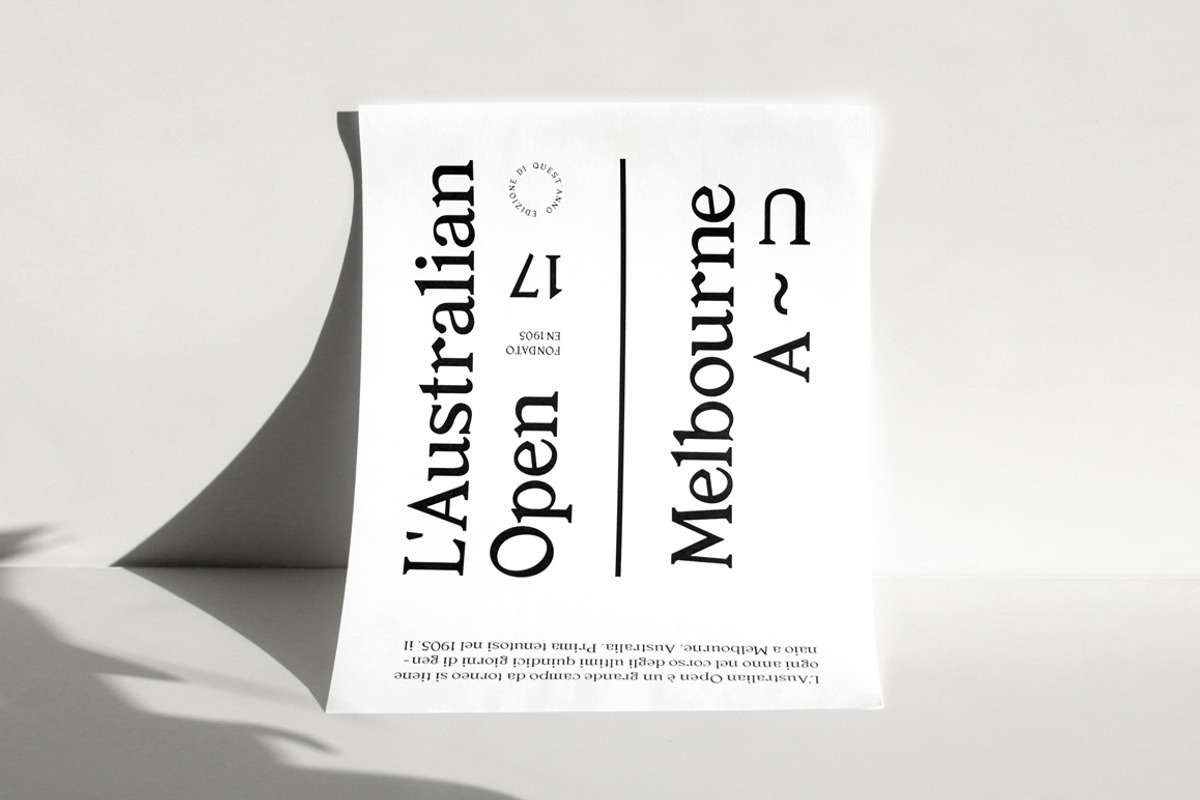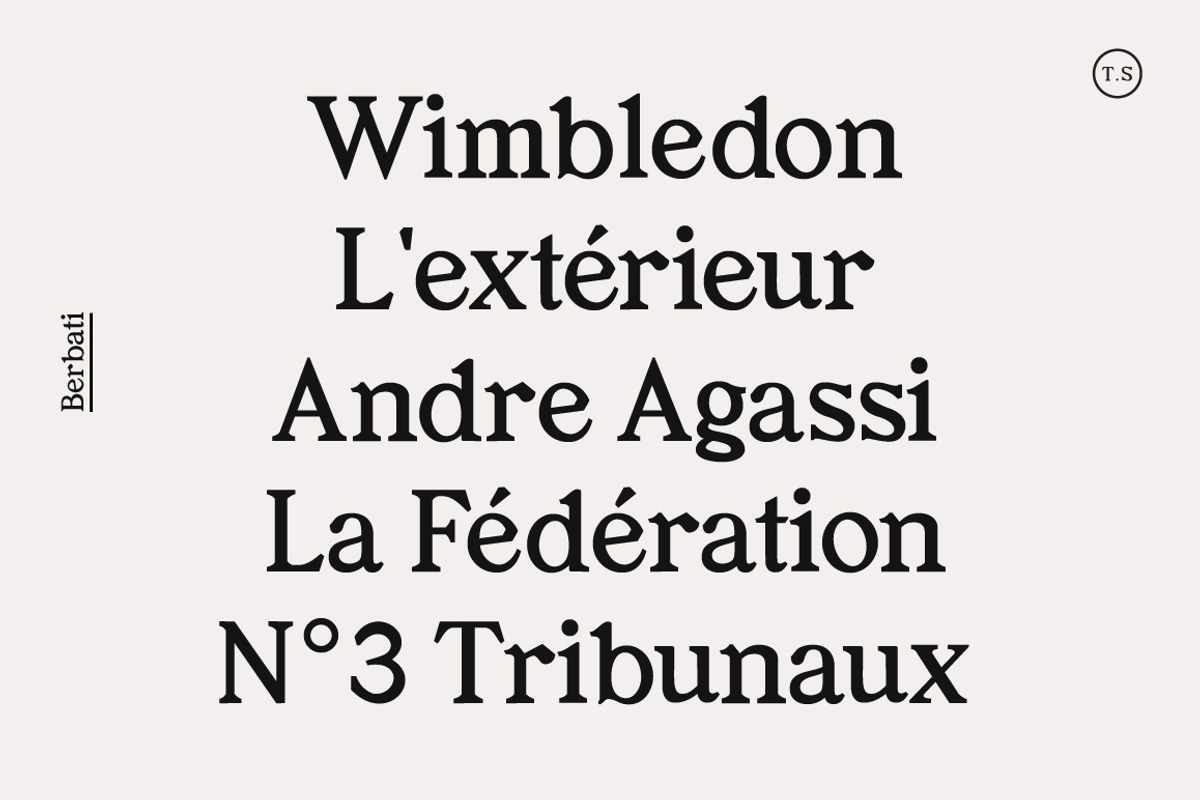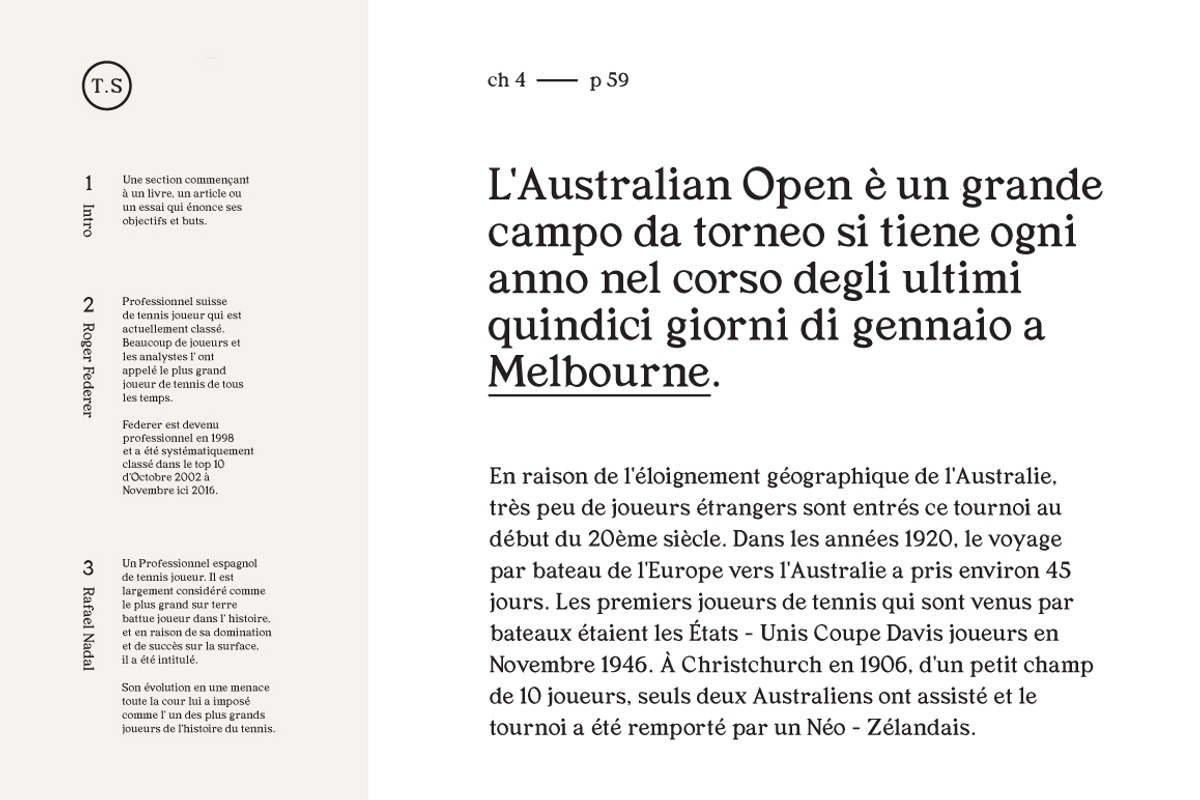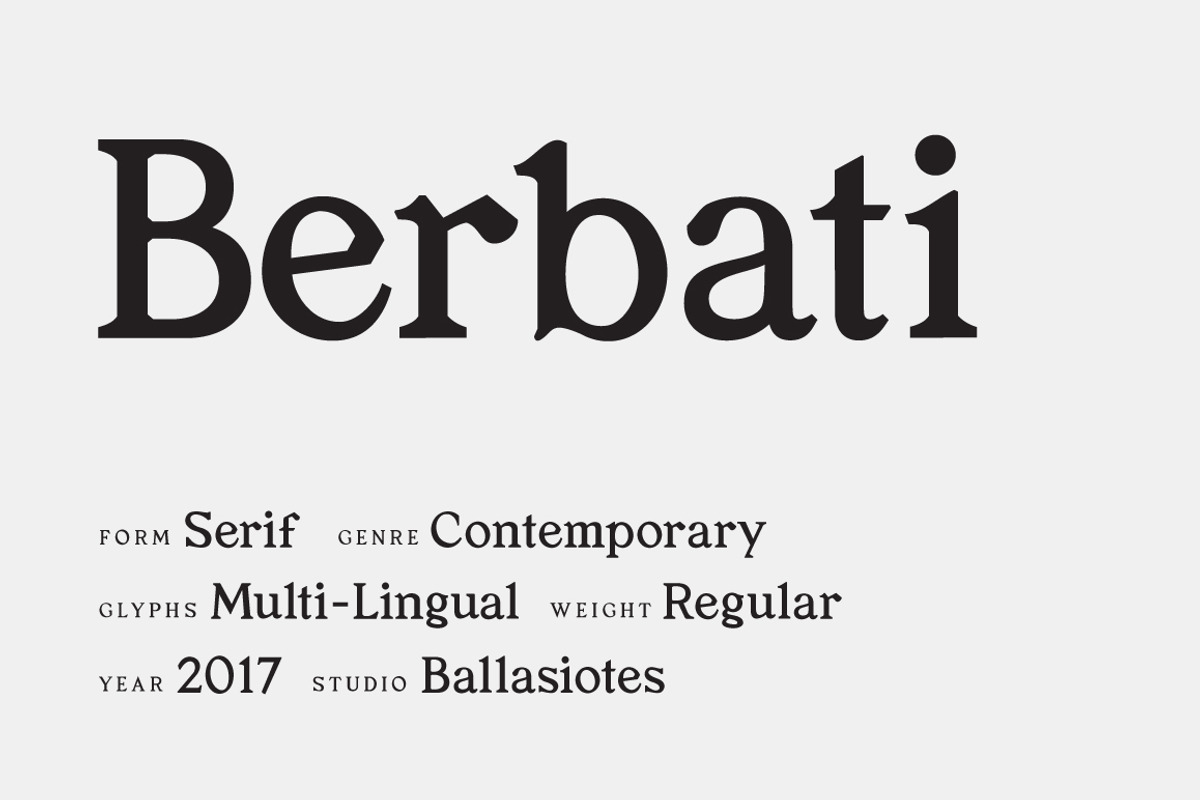
Berbati Regular Serif Font
Berbati Regular Serif Font by Ballasiotes is a font selected for branding, posters, packaging, typography.
- Sharp edges and experimental accents make this font a perfect workhorse for any type collection.
Why Berbati Regular Serif Font is worth a look
Berbati Regular Serif Font by Ballasiotes fits naturally into Branding, posters, packaging, typography.